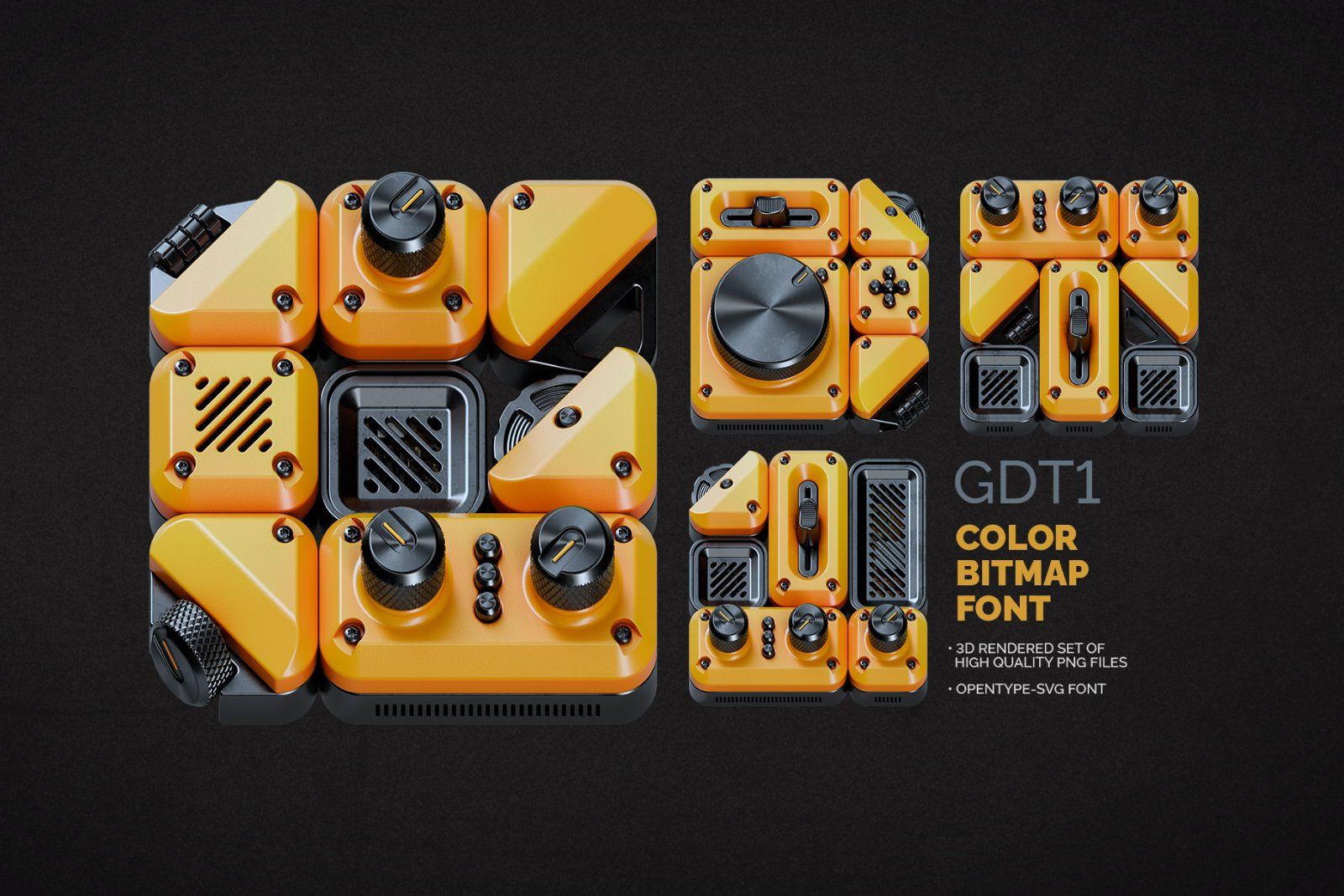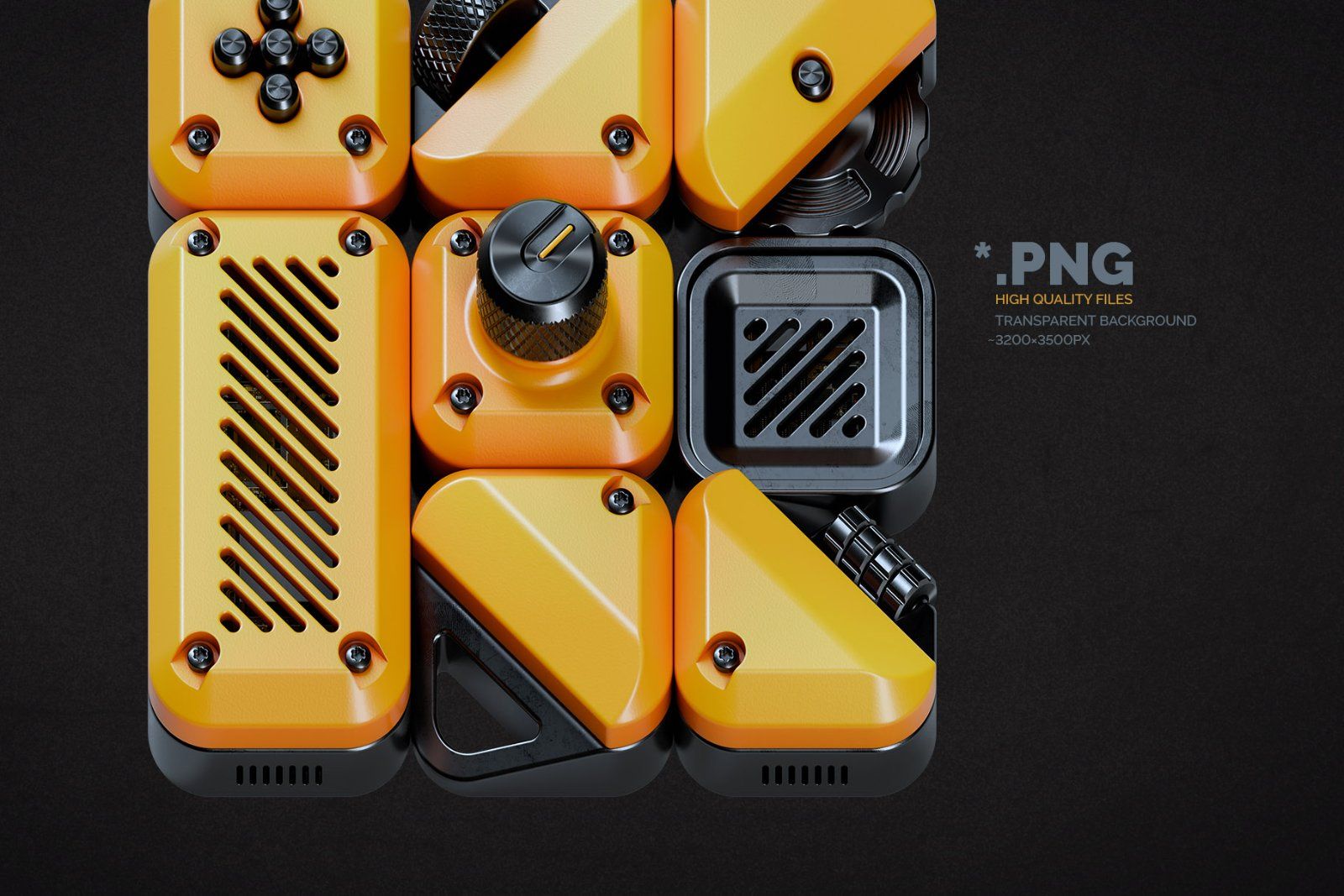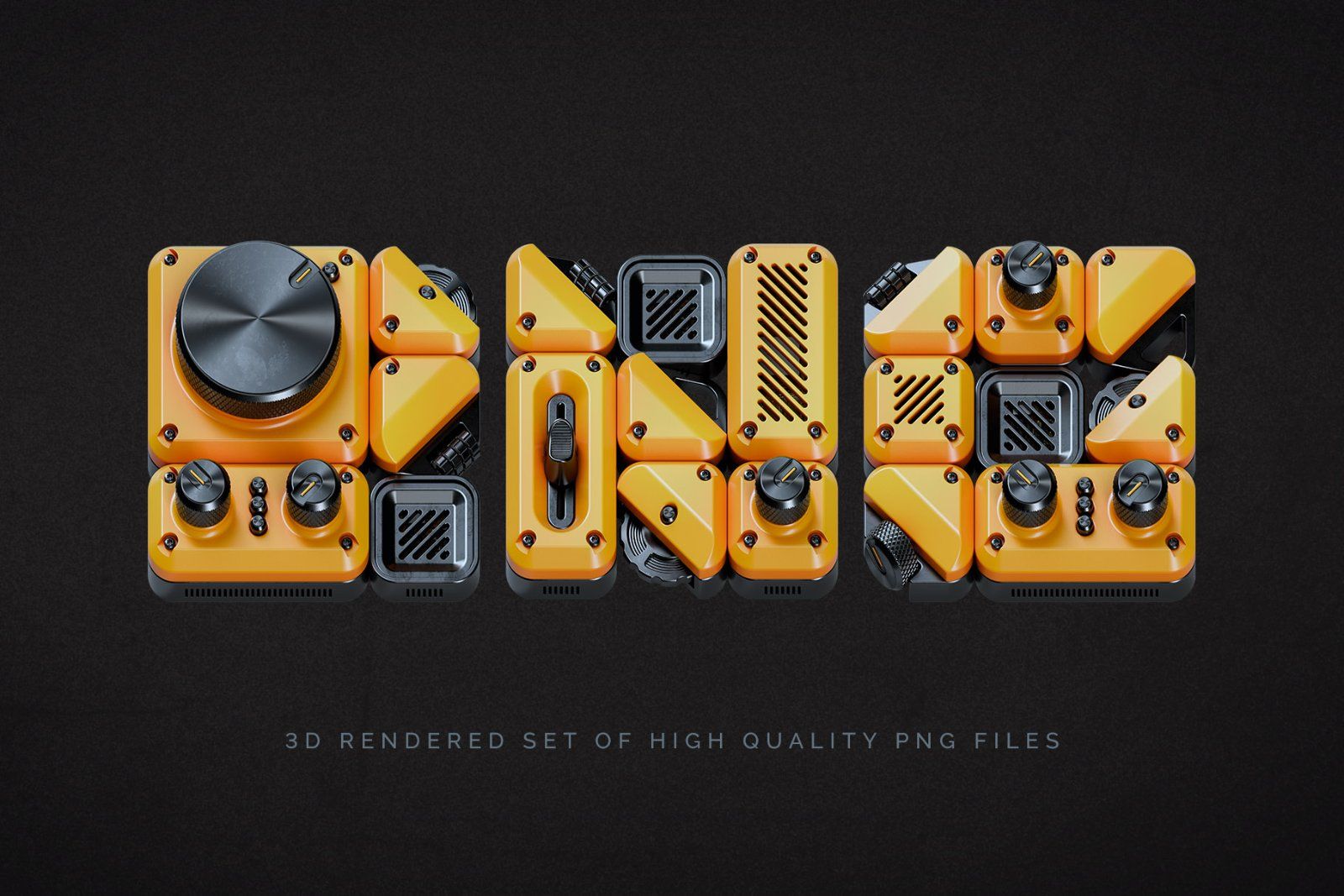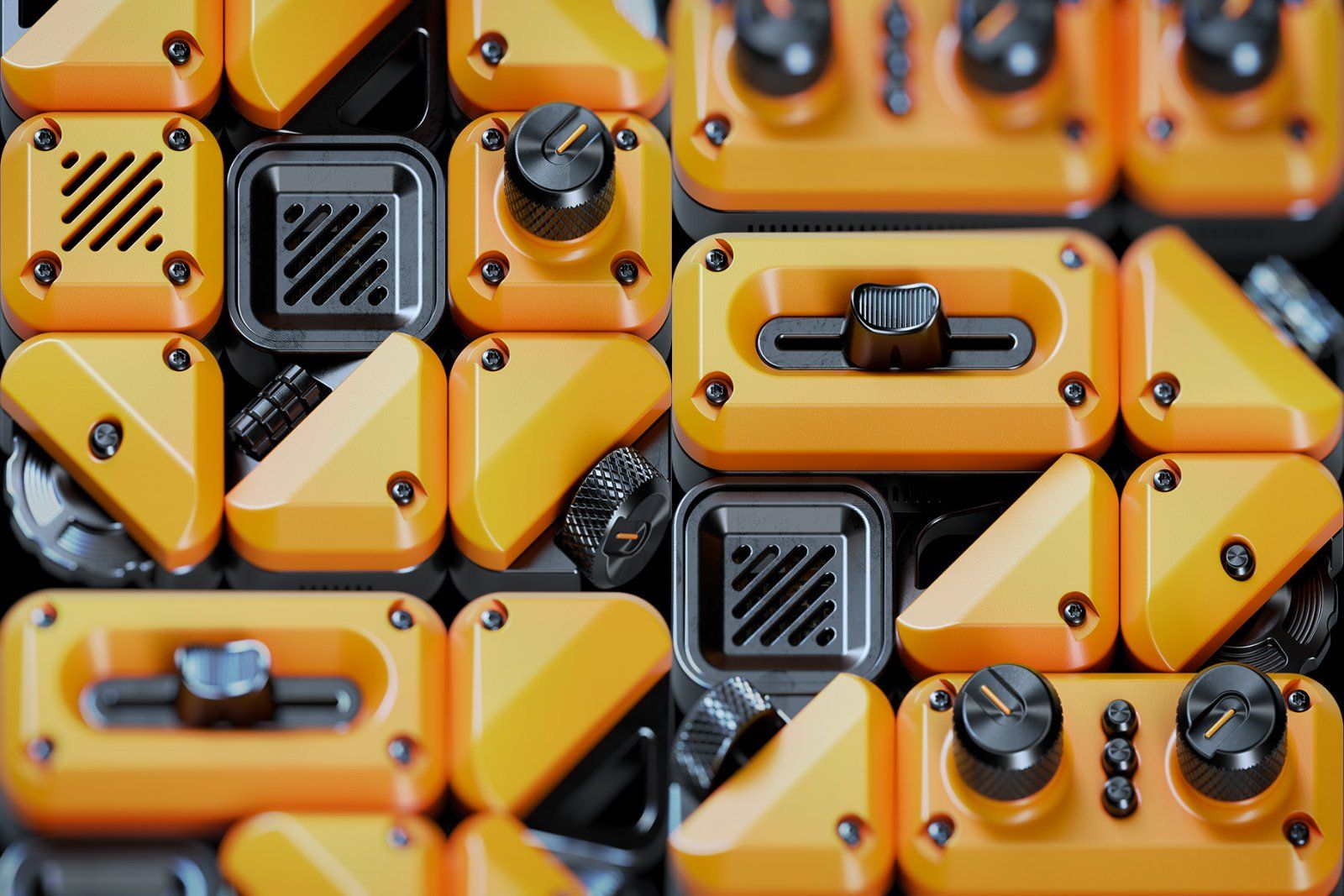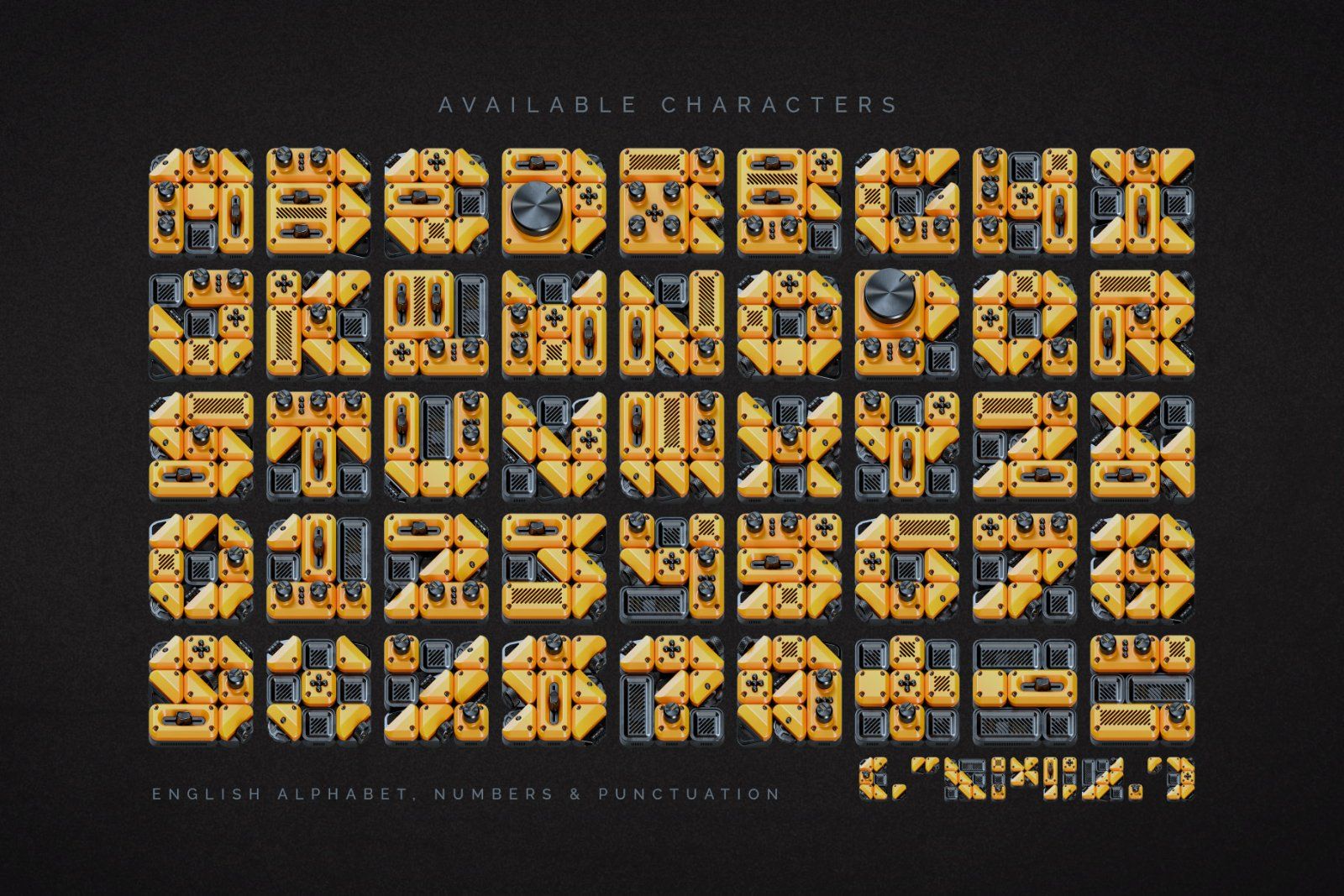
Hello! Meet the GDT1 color bitmap font — a vibrant 3D-rendered typeface inspired by vintage analog devices like audio amps and industrial panels. Each letter fits together like a mechanical puzzle, built from bolts, switches, dials, and sliders. Ideal for tech-themed visuals, poster art, and creative design projects.